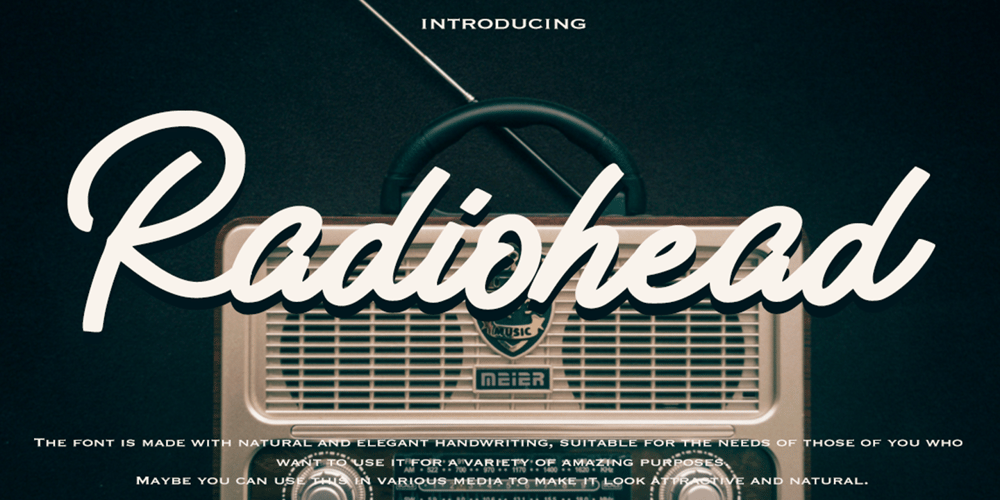
Radiohead Font Family was designed by Muhammad Zaini and published by Cocodesign. Radiohead contains 1 styles and family package options. The font is made with natural and elegant handwriting, suitable for the needs of those of you who want to use it for a variety of amazing purposes. Maybe you can use this in various media to make it look attractive and natural.